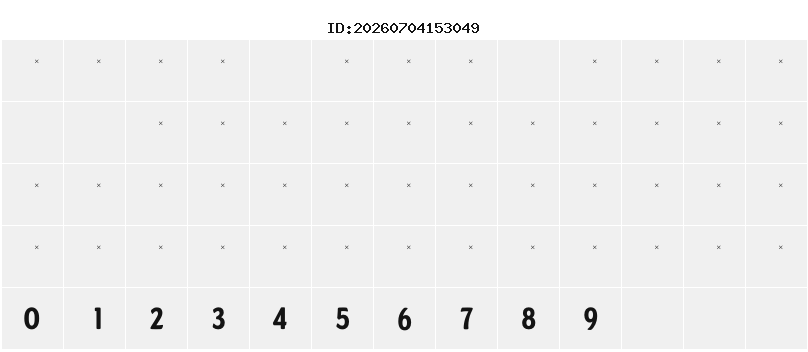
DundeeExtraBoldCondTab Preview
• Font Name: DundeeExtraBoldCondTab
• Full Font Name: DundeeExtraBoldCondTab
About DundeeExtraBoldCondTab.otf
DundeeExtraBoldCondTab.otf is a modern, elegant sans-serif font designed for ultimate readability and visual harmony. Perfect for branding, headlines, web design, and print materials.